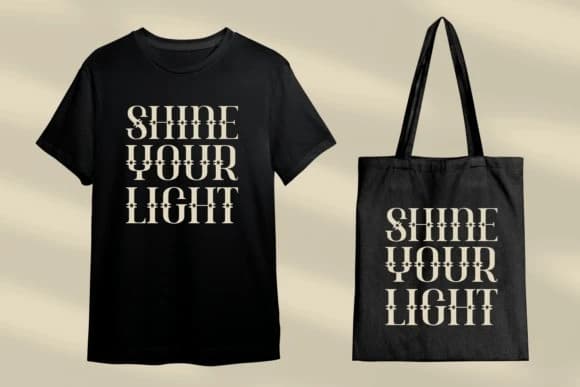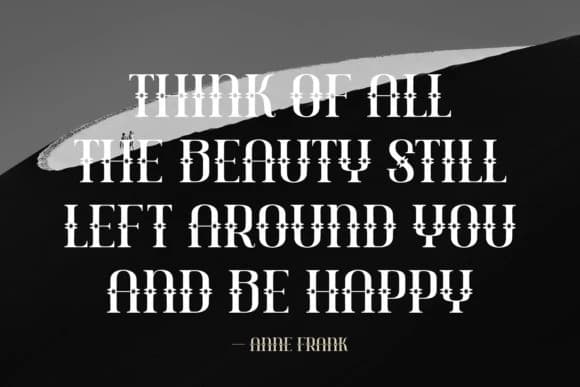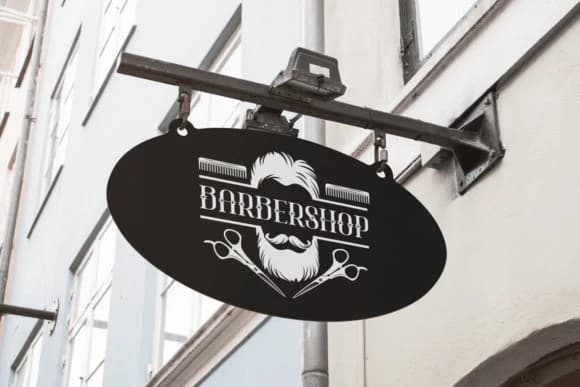
Walking Slowly Font
Walking Slowly Font, a Blackletter-inspired font. Walking Slowly is a masterful fusion of vintage and grunge aesthetics, making it a popular choice for a diverse range of applications. Perfect for an old-style barbershop to contemporary apparel branding